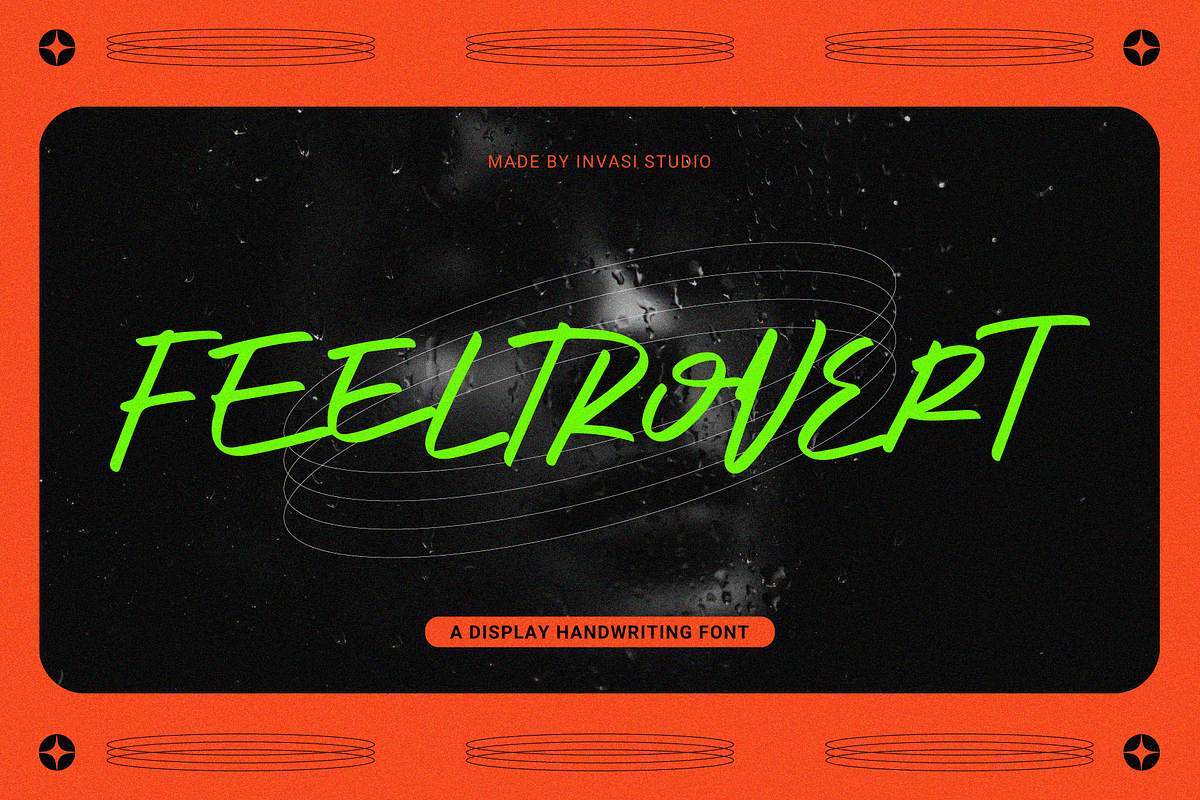
Feeltrovert - Display Font Free Download is a bold and expressive typeface made for creatives who want their work to speak volumes. With its unique shapes, artistic flair, and eye-catching details, Feeltrovert is perfect for posters, album covers, branding, headlines, and anything that needs a strong visual identity. This font doesn’t whisper—it roars with style and personality.
Crafted for maximum impact, Feeltrovert - Display Font Free Download combines edgy design with modern aesthetics, making it a go-to choice for bold typographic statements. Its display-style nature means it’s best used in large sizes, where its quirky letterforms and confident rhythm can truly shine. Whether you're a designer working on creative campaigns or a brand looking to stand out, Feeltrovert adds the punch your project needs.